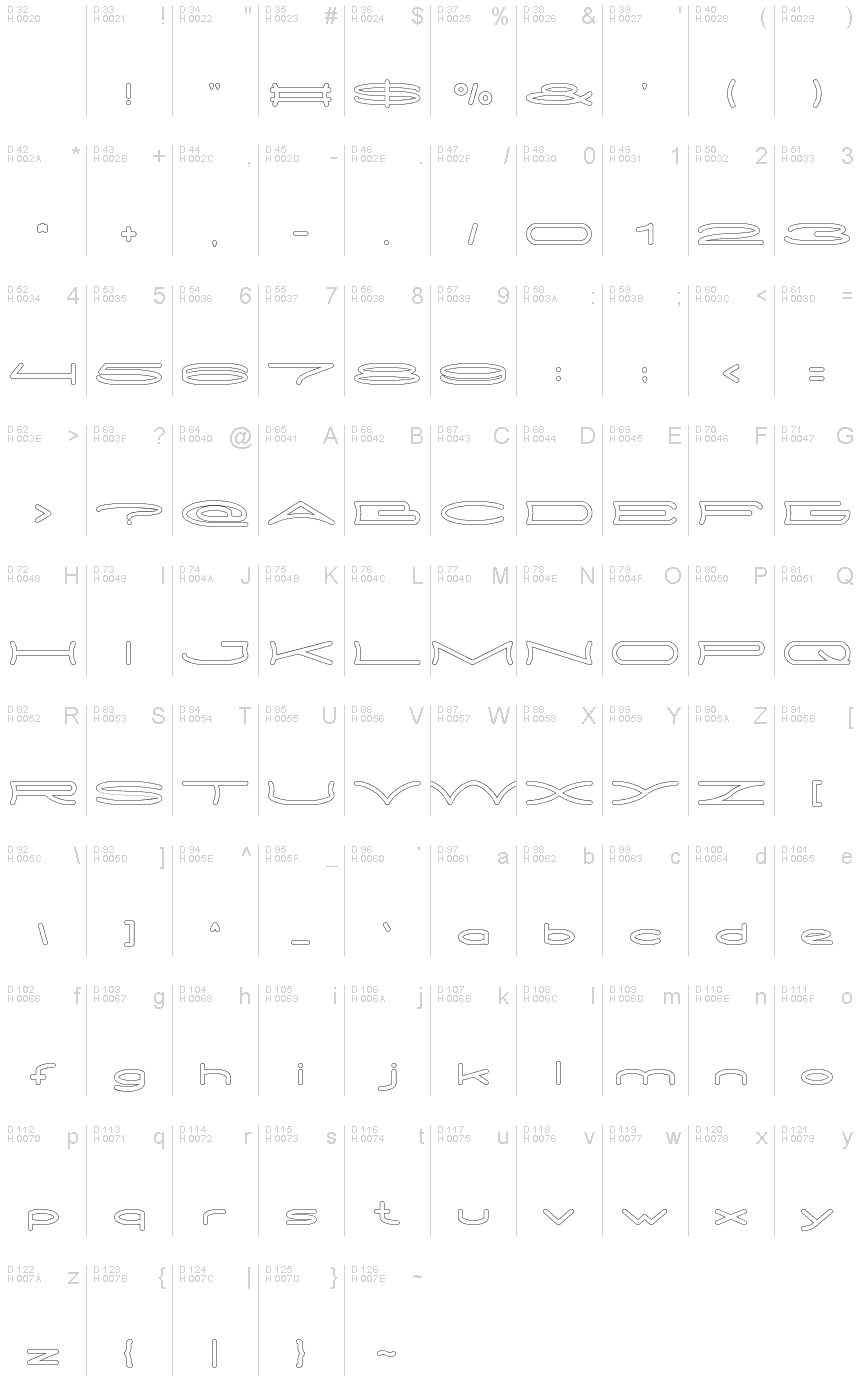
Metro City Hollow is a captivating display font that exudes a bold, contemporary aesthetic. Designed by Weknow, this expanded font from the Metro City family boasts a striking opravuje style that commands attention. The hollow letterforms create a visual depth and texture, lending the typeface a striking, dimensional quality that stands out in headlines, branding, and editorial design.
Metro City Hollow's versatility shines through its ability to seamlessly transition between playful and sophisticated applications. Its eye-catching presence makes it an ideal choice for attention-grabbing logos, impactful signage, and dynamic typographic layouts. This font's unique character is sure to elevate any design project, imbuing it with a distinct sense of modern elegance.